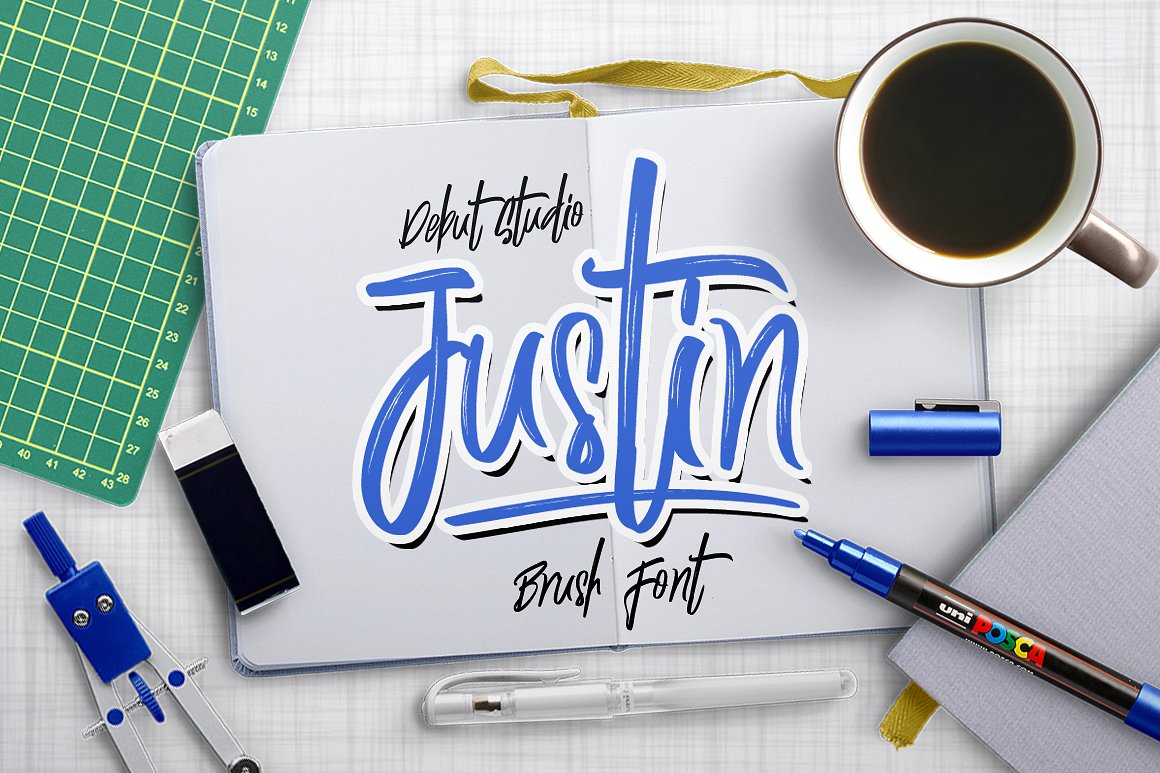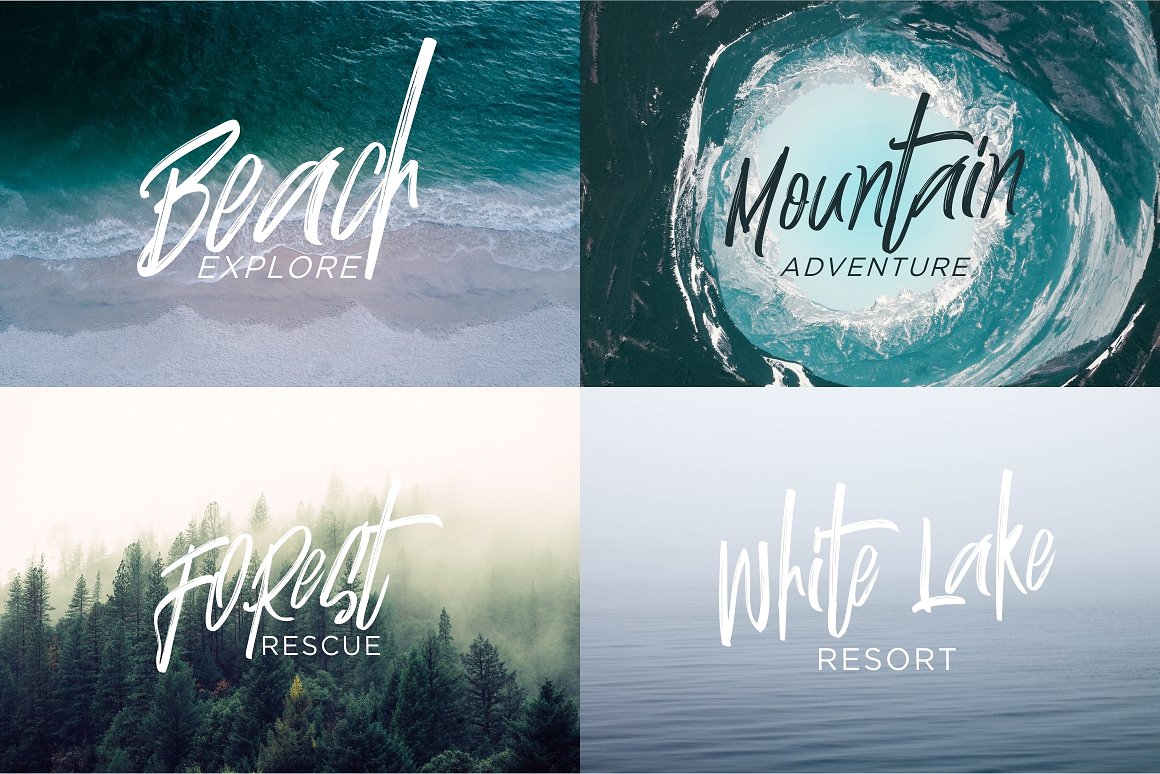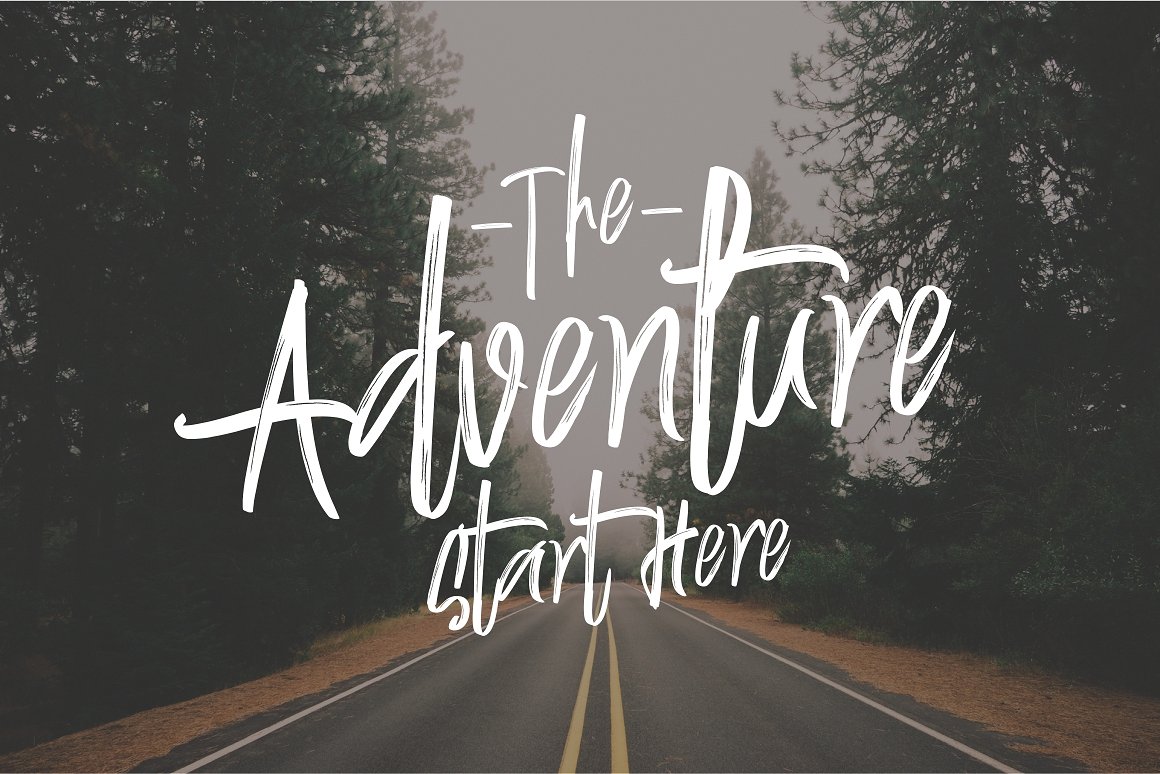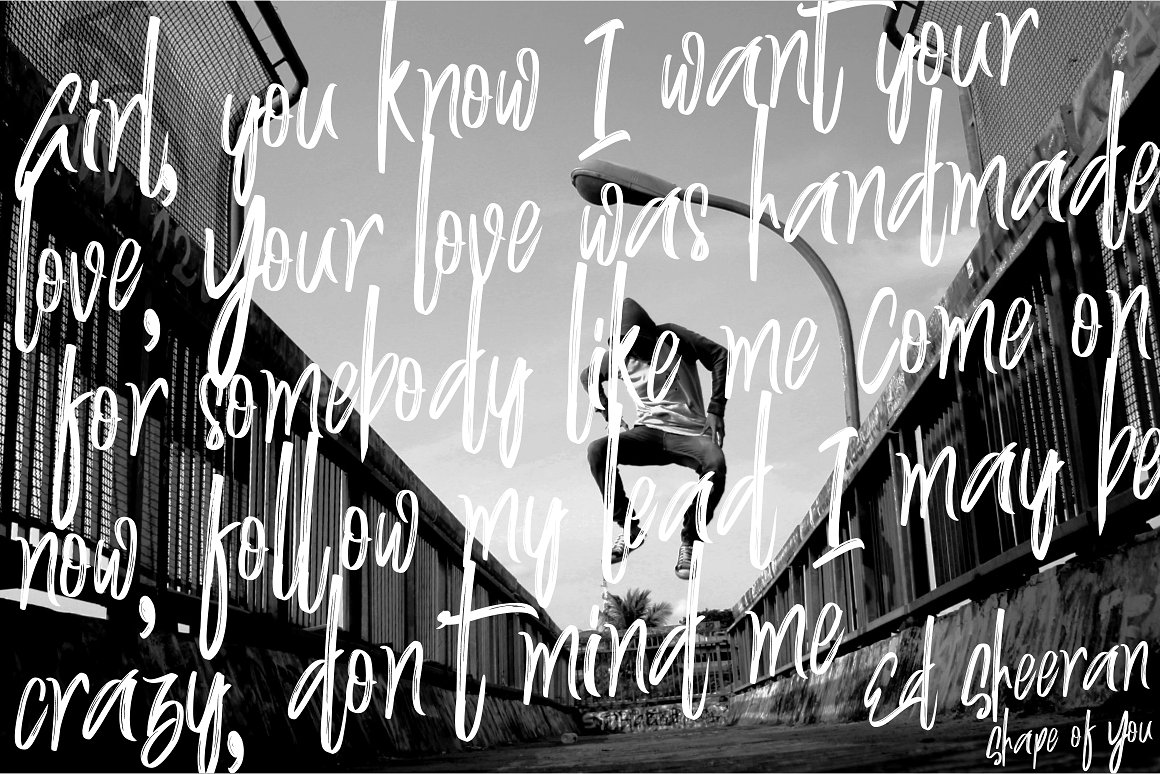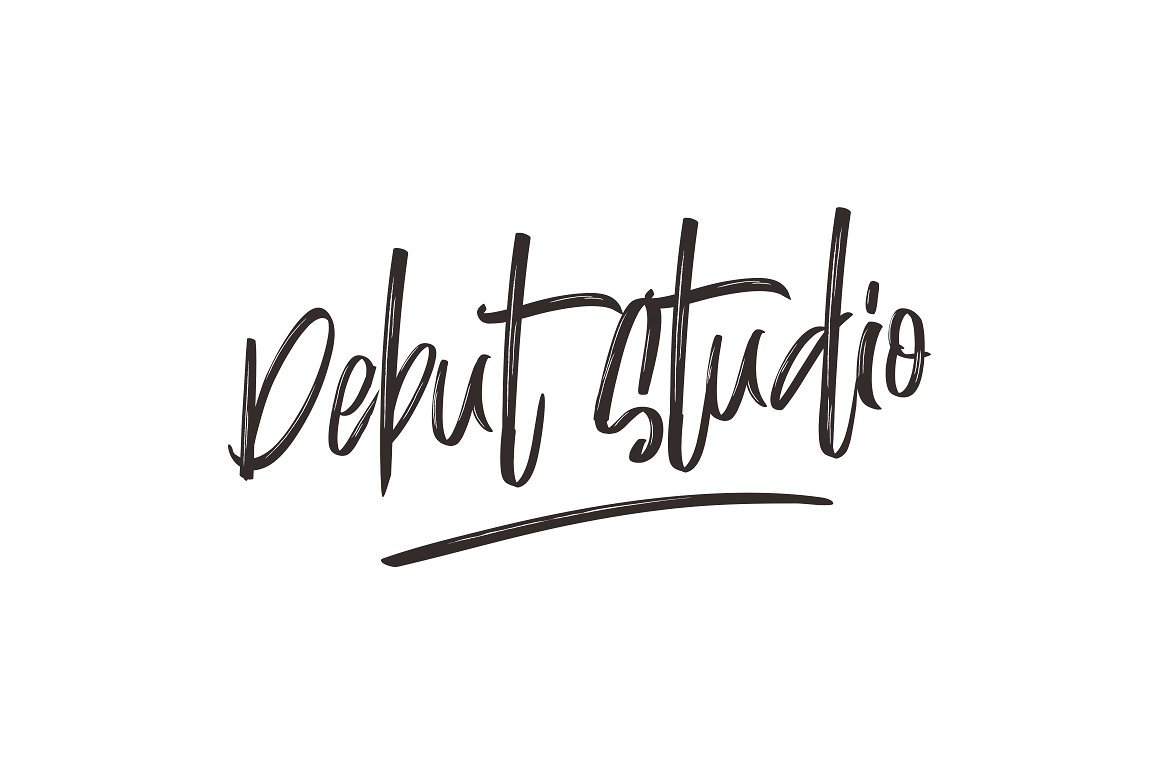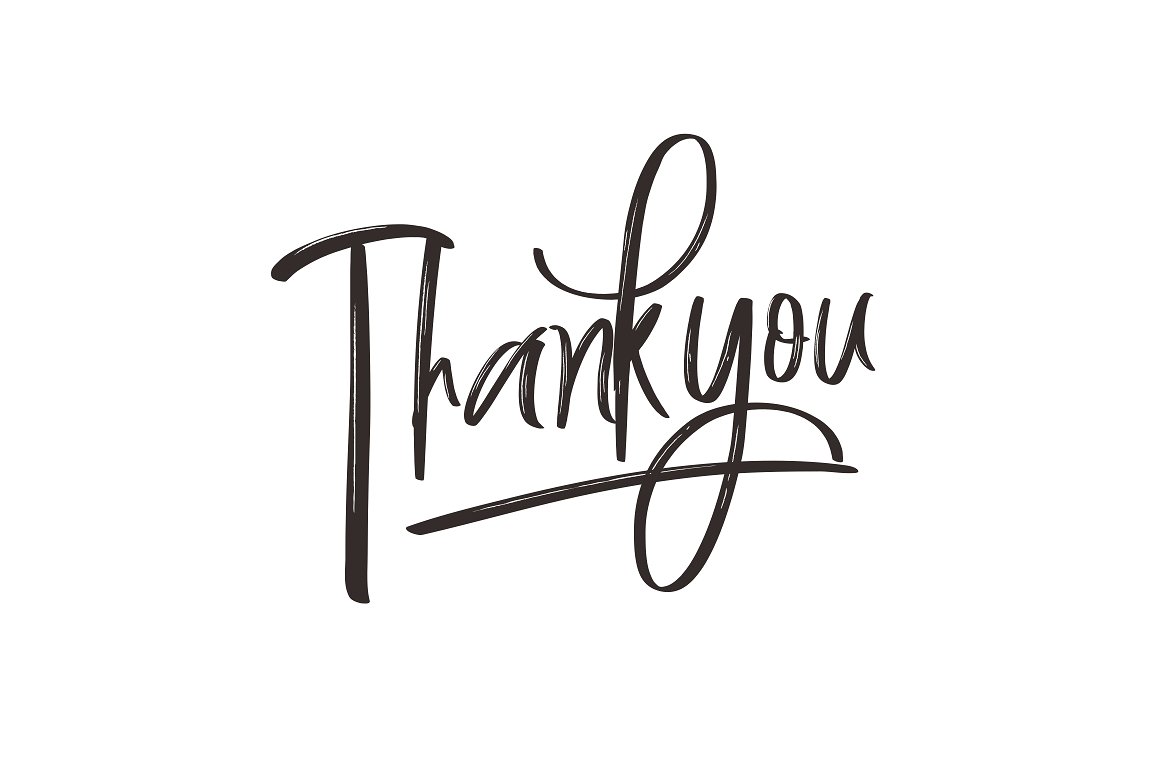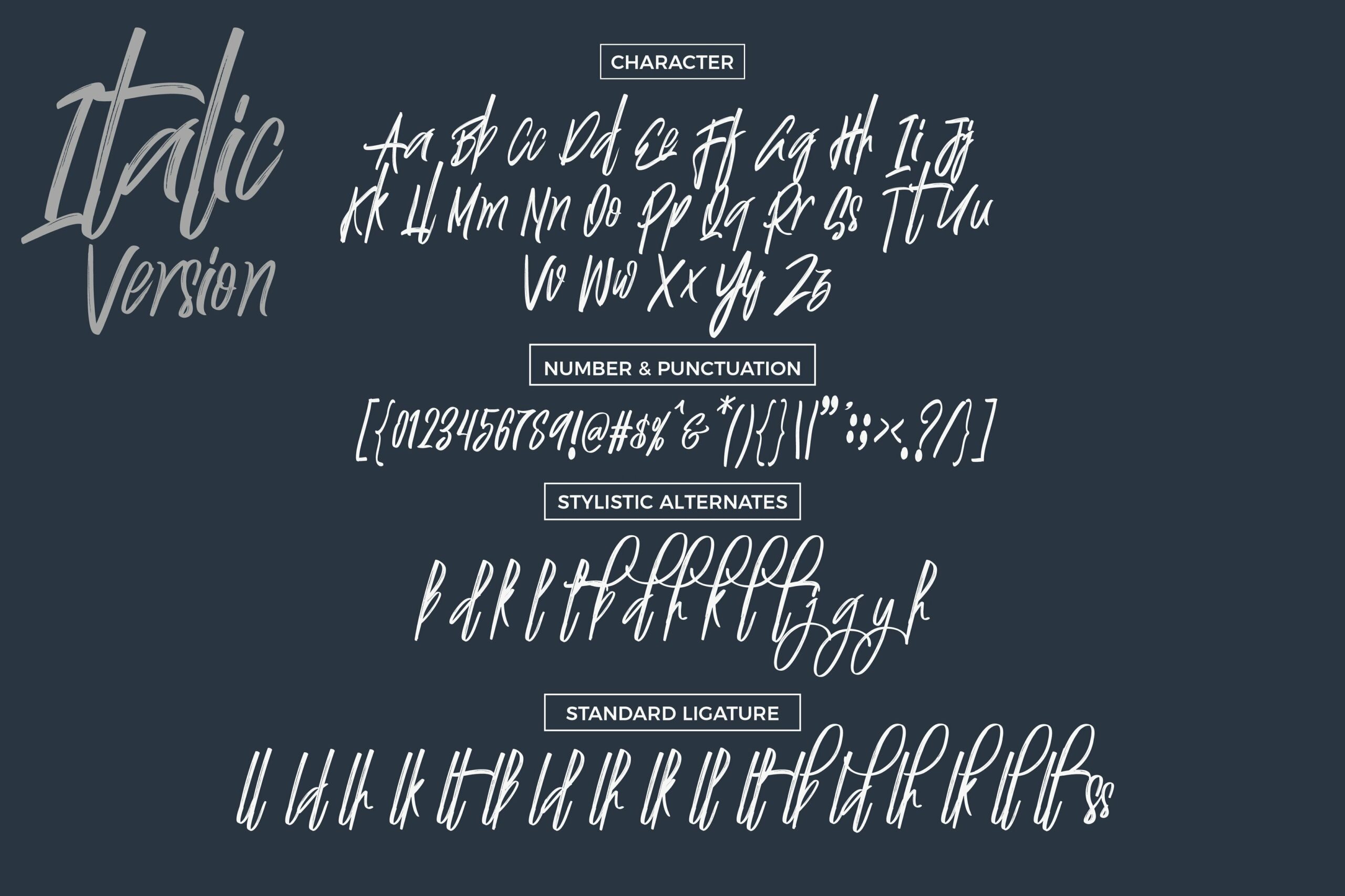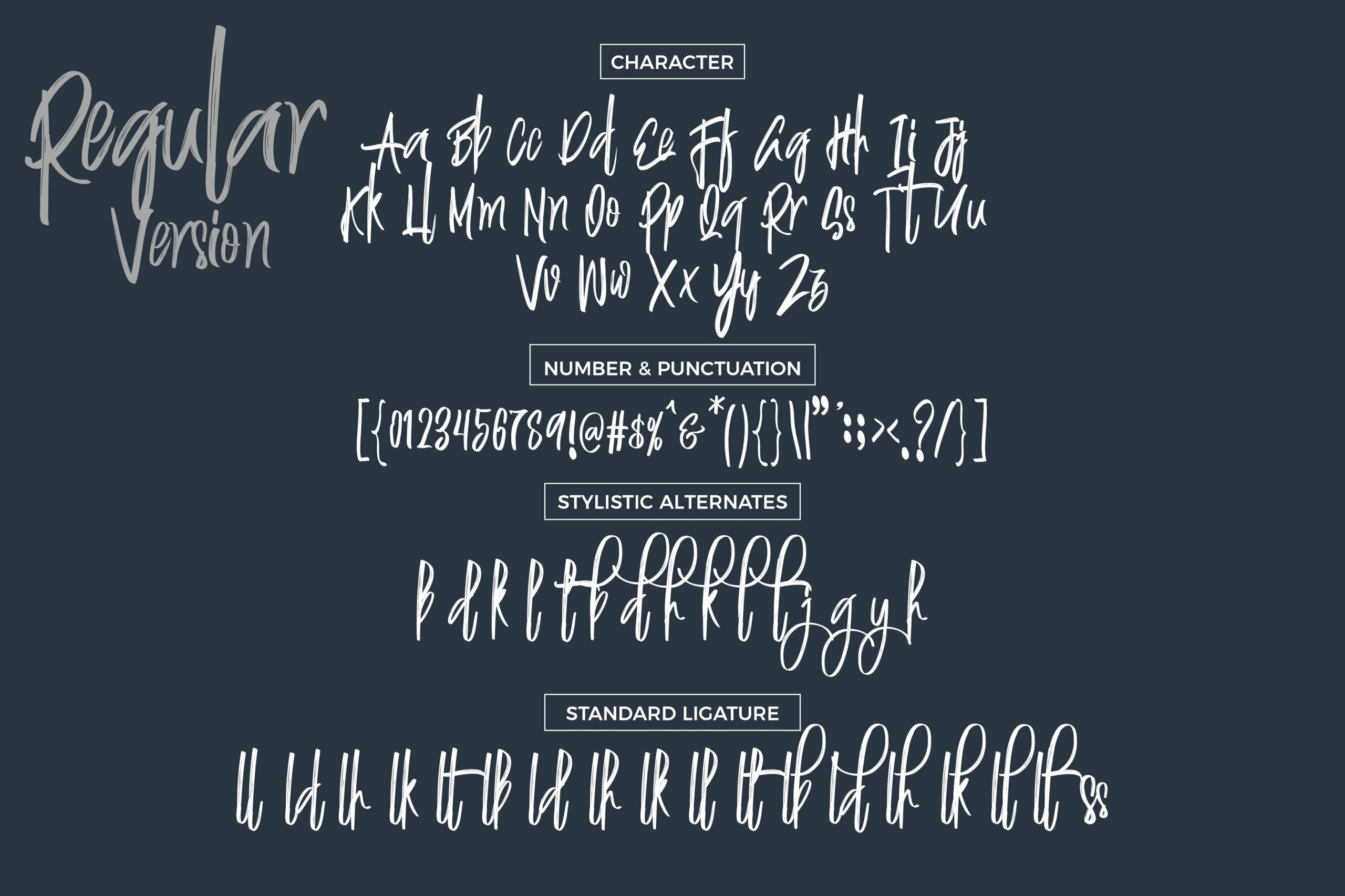
HomeScript FontsJustin Brush Font Script Fonts Justin Brush Font FacebookTwitterPinterestWhatsApp Justin Brush Font Poster 2 Justin Brush Font Poster 3 Justin Brush Font Poster 4 Justin Brush Font Poster 5 Justin Brush Font Poster 6 Justin Brush Font Poster 7 Justin Brush Font Poster 8 About Justin Brush Font Justin is a handwritten calligraphy-style font. It’s completely made by hand using a brush pen. DOWNLOAD NOW People also explored Dea Githa Font Beone Extra Bold Font Kronshtadt Font Consider Font Adilla and Rita Font Finis Text Soft Font Gonte Sad Angel Font Datting Rose Font 131 0 TagsJustin Brush Font Previous articleAlaska FontNext articleBehind Blue Eyes Font LEAVE A REPLY Cancel reply Comment: Please enter your comment! Name:* Please enter your name here Email:* You have entered an incorrect email address! Please enter your email address here Website: Save my name, email, and website in this browser for the next time I comment. Personal Use Free Hubbies Personal Use Free Read more about this font Rozalyn Personal Use Free Read more about this font Open Store Personal Use Free Read more about this font Folgore Personal Use Free Read more about this font BLOG The 10 Best Handwriting Fonts to Add Personality to Your Designs 10 of the Best Handwriting Fonts for Adding Personality to Your Designs There will undoubtedly be no other better choice than handwriting fonts to give... Free vs Paid Fonts: Why Investing in Premium Fonts Is Worth It Exploring Font Trends To increase your work productivity, choose the most readable fonts.